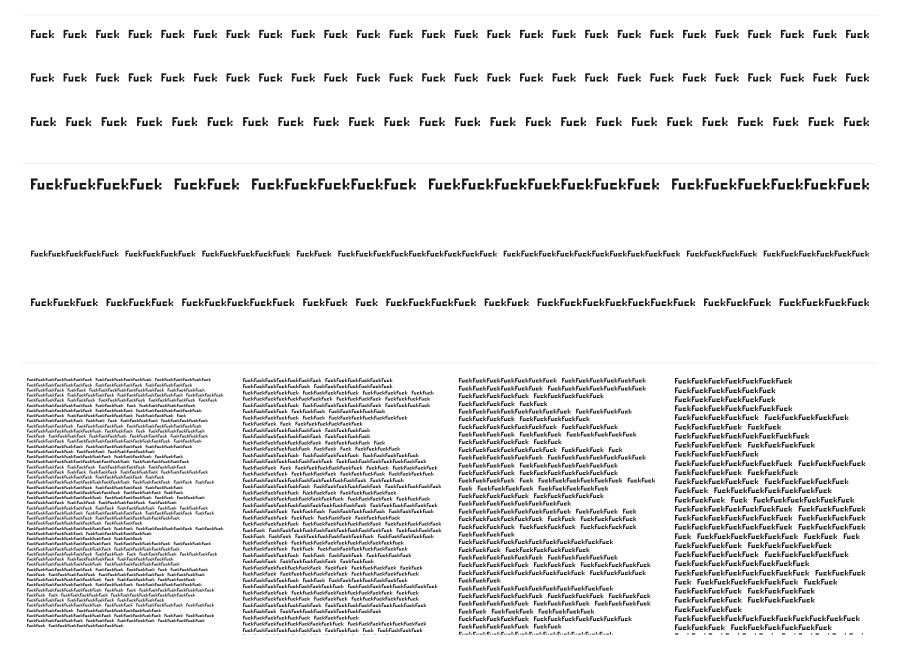
Fuck
by Olivia Spankowski
Fuck is a bold bitmap pixel font by Finn Spankowski with an unapologetically raw 8-bit character. Built on a strict square grid with uniform stroke weight and hard right-angle terminals, it reads like text ripped straight from an old arcade screen. The name says the rest.